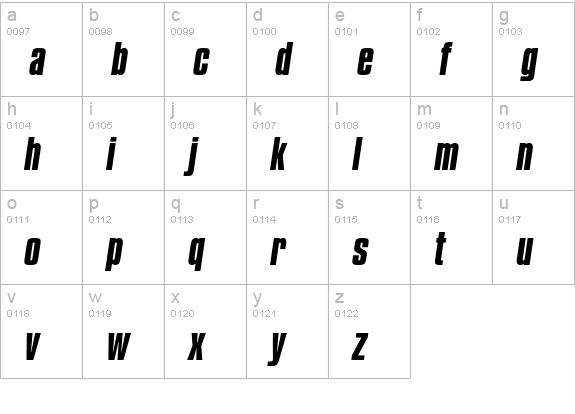
Compacta Bold Italic BT is a strong, high-contrast, italic variant in the Compacta typeface family \xE2\x80\x94 well suited to headlines, attention-grabbing titles, and strong calls-to-action.
Compacta Bold Italic BT is a striking and modern typeface that exudes confidence and boldness. The italicized form adds a touch of elegance and dynamism to the text, making it perfect for headlines, logos, and other design projects where a strong visual impact is desired. This font is well-suited for conveying a sense of authority and sophistication. The Compacta Bold Italic BT font is available for free download at FontsMarket.com, making it easily accessible for designers and creators looking to add a touch of style and flair to their work. With its sleek and versatile design, this font is sure to make a statement and elevate any design project it is used in.